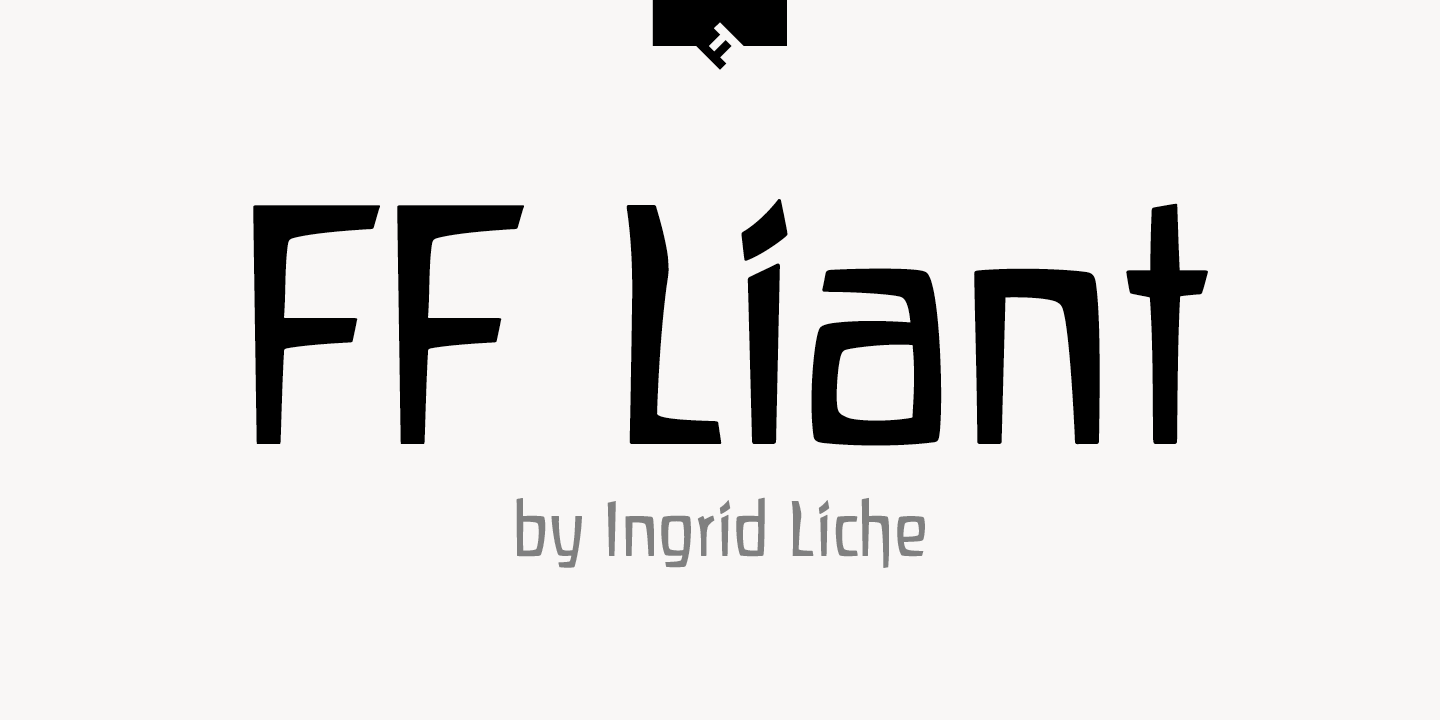
FF Liant Font is perfect for contemporary magazine layouts, dynamic advertising campaigns, modern corporate branding, sleek product packaging, innovative web design projects, progressive editorial materials, cutting-edge marketing communications, stylish presentation templates, forward-thinking brand identities, and sophisticated digital interface designs.
What makes FF Liant Font so exciting is its extraordinary fusion of geometric precision with organic fluidity, creating letterforms that seem to flow effortlessly between structure and movement while maintaining perfect typographic harmony. This font captures the essence of contemporary design evolution and professional versatility, featuring intelligently crafted characters that adapt seamlessly to any creative challenge. The balanced letter shapes create an atmosphere of modern sophistication and creative confidence, making every word feel both grounded in tradition and boldly innovative.
The FF Liant Font family includes Ultra Light, Light, Regular, Medium, Bold, and Heavy weights, along with corresponding italic variations and condensed styles. Each style maintains the font's distinctive contemporary character while offering exceptional flexibility for different professional applications, from delicate body text that flows with natural rhythm to powerful headlines that command attention and respect.
The expertly crafted letterforms in FF Liant Font feature subtle curves balanced with clean geometric structures that ensure optimal performance across both traditional print and modern digital platforms. Each character demonstrates perfect optical balance while maintaining distinctive personality traits that set it apart from conventional typography. The font's sophisticated design makes it particularly effective for projects requiring both professional credibility and creative distinction.
Creative professionals appreciate how FF Liant Font effortlessly bridges the gap between traditional typography and contemporary design innovation while maintaining exceptional legibility and visual appeal. The comprehensive glyph set includes specialized symbols, advanced typographic features, ligatures, and extensive international language support, ensuring global compatibility while preserving its distinctive modern identity. This makes it an essential resource for design agencies, publishing houses, technology companies, and any organization seeking typography that embodies the perfect balance of proven reliability and forward-thinking creativity.